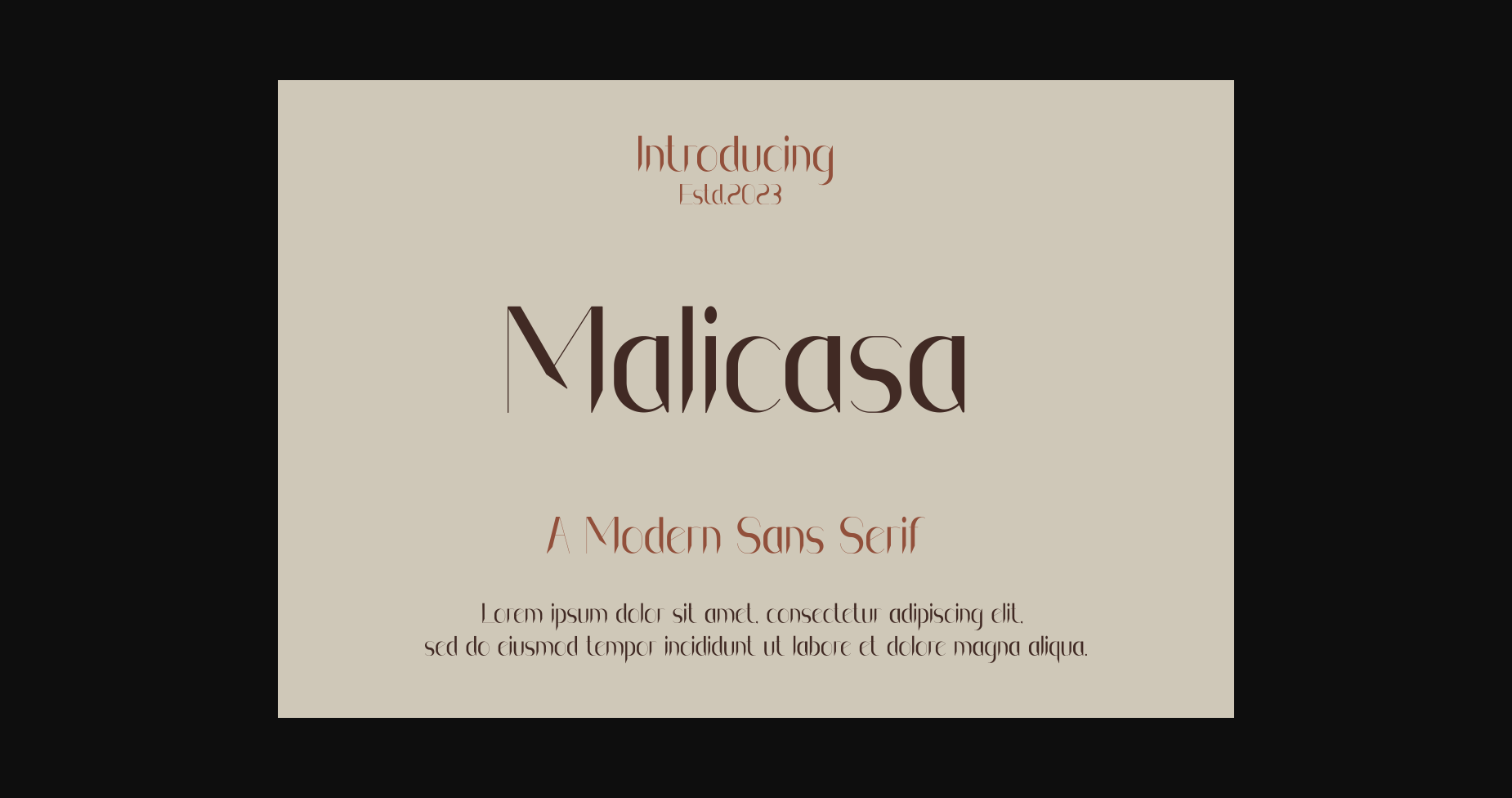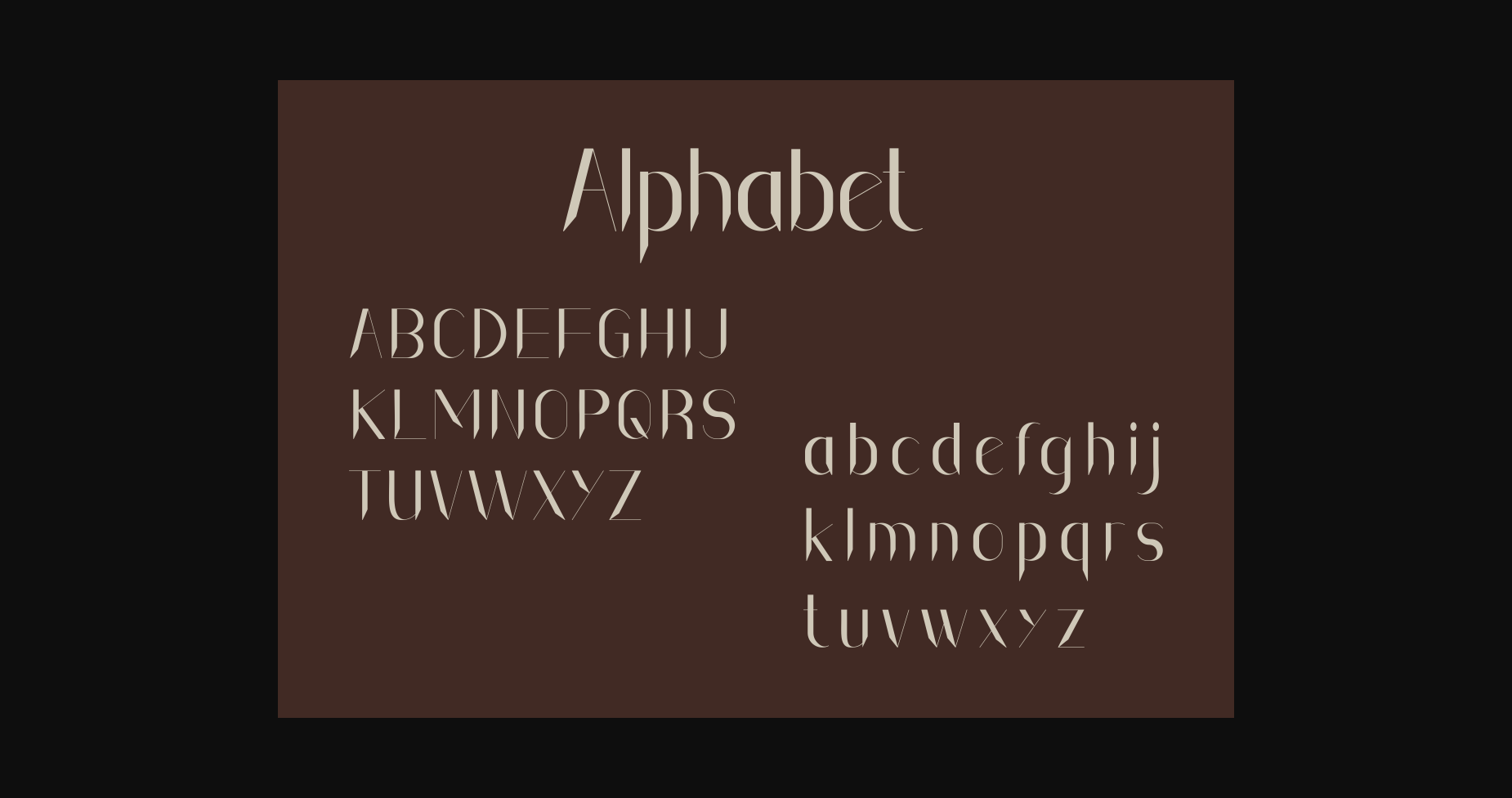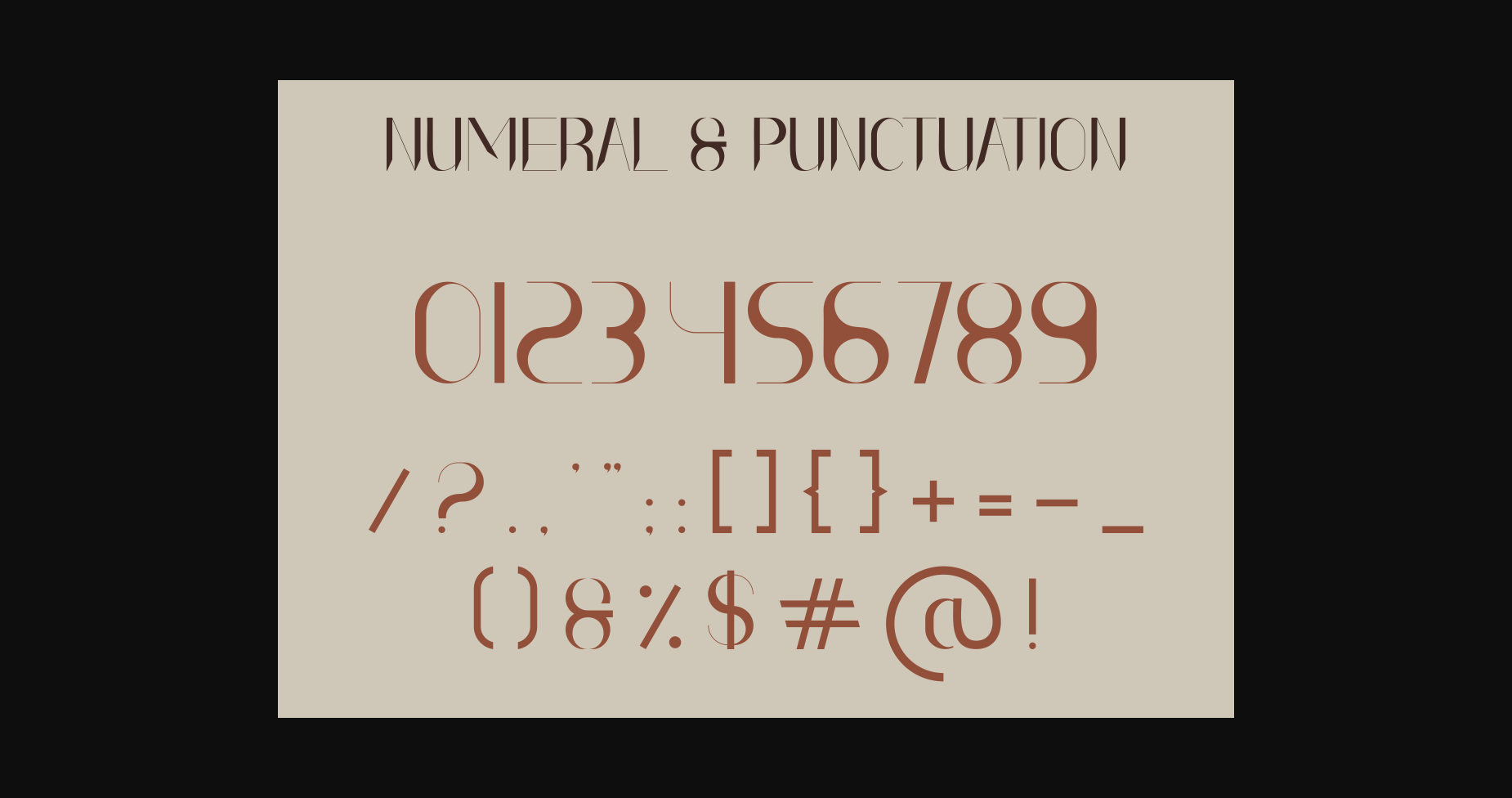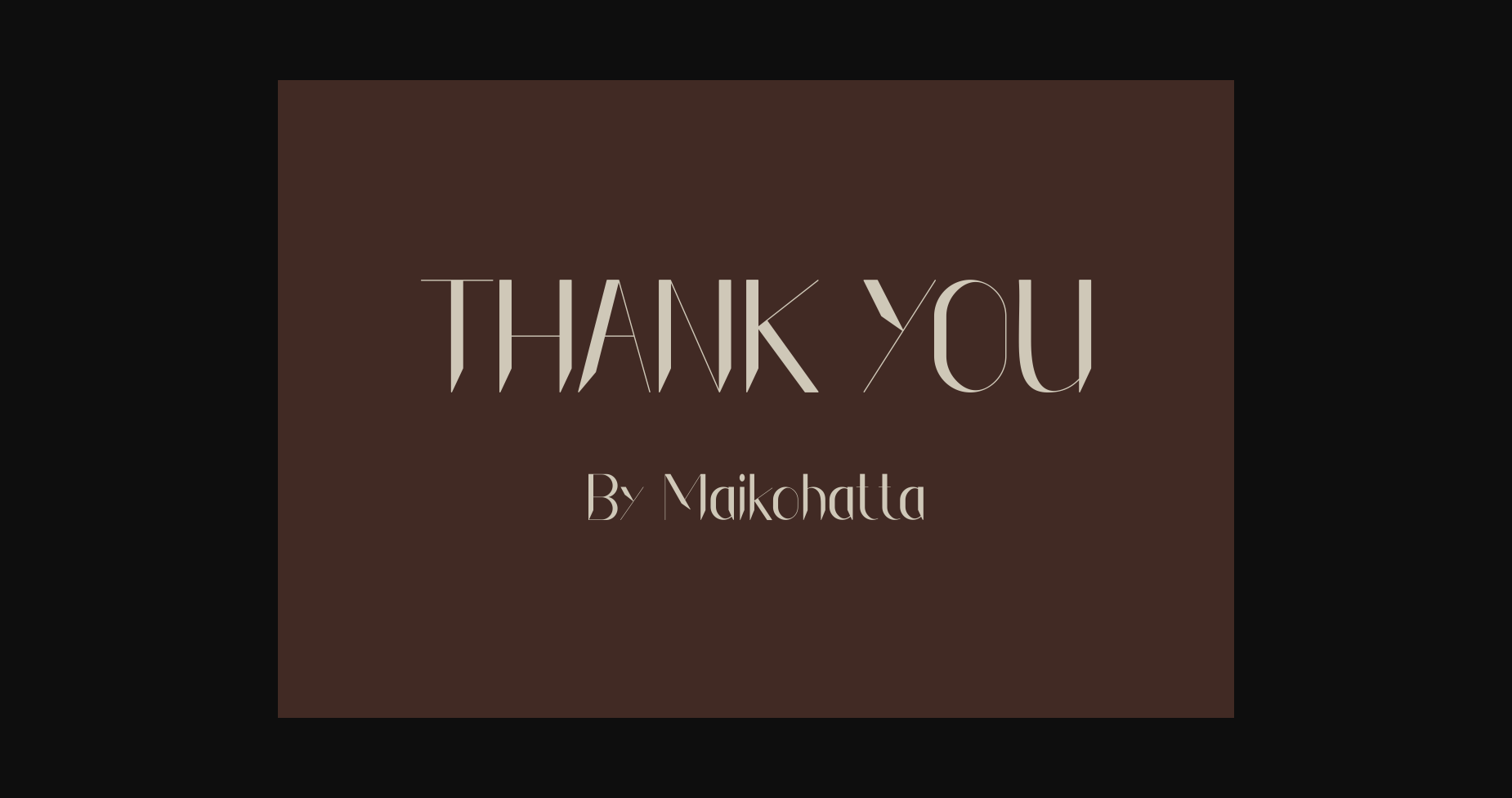
Malicasa Font
About Malicasa Font
Malicasa is a bold and authentic display font. The font is suitable for any branding project like logo, t-shirt printing, esports, and many more. outstanding in a wide range of contexts.